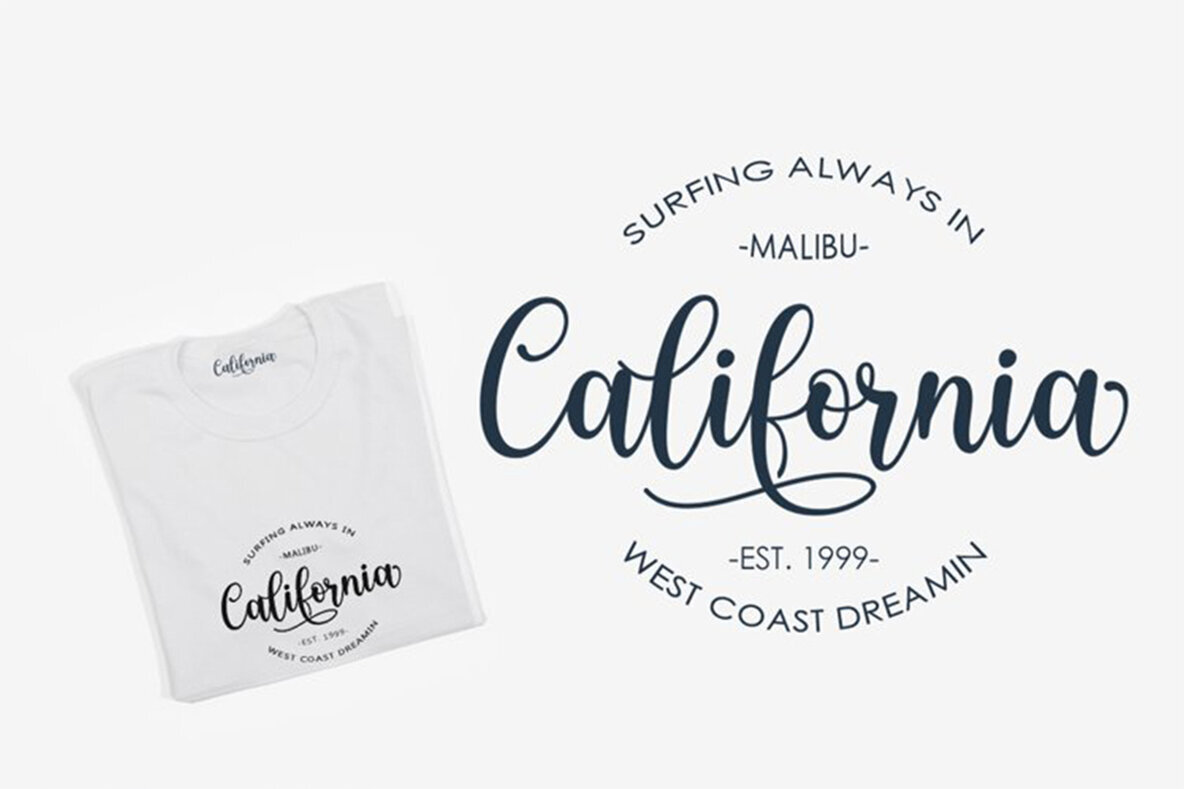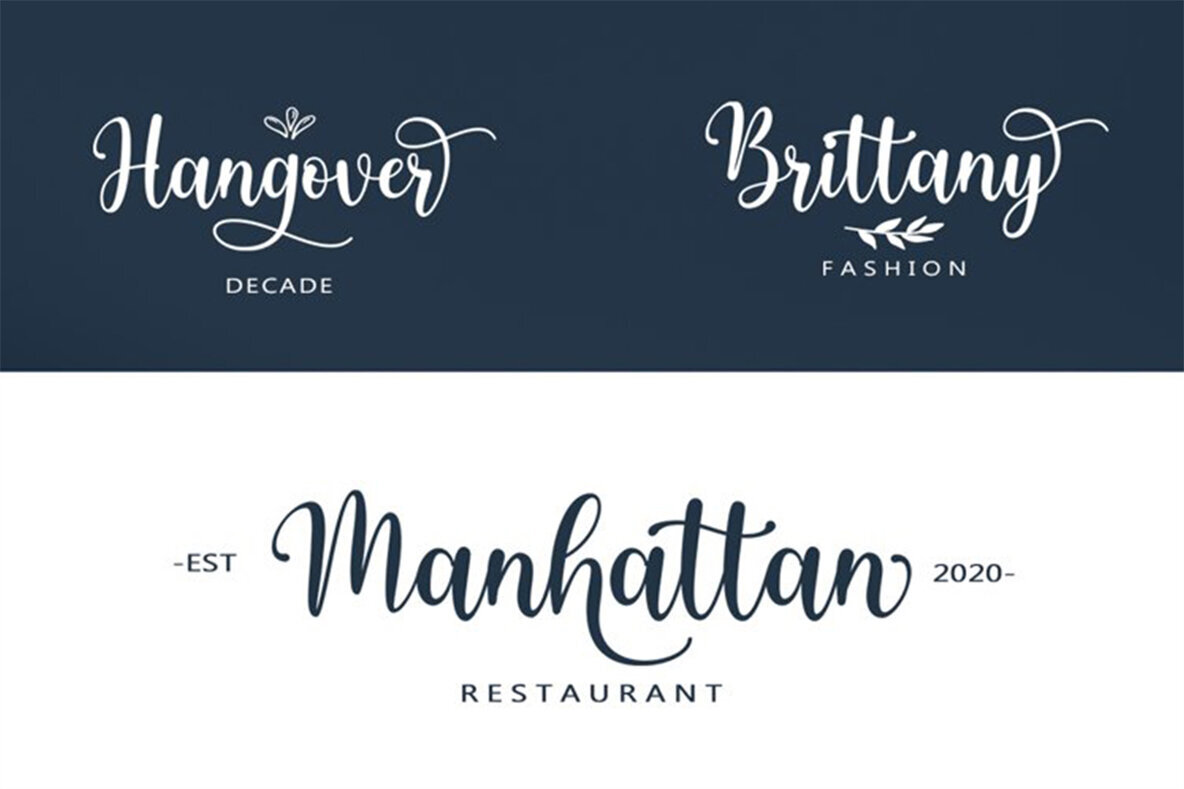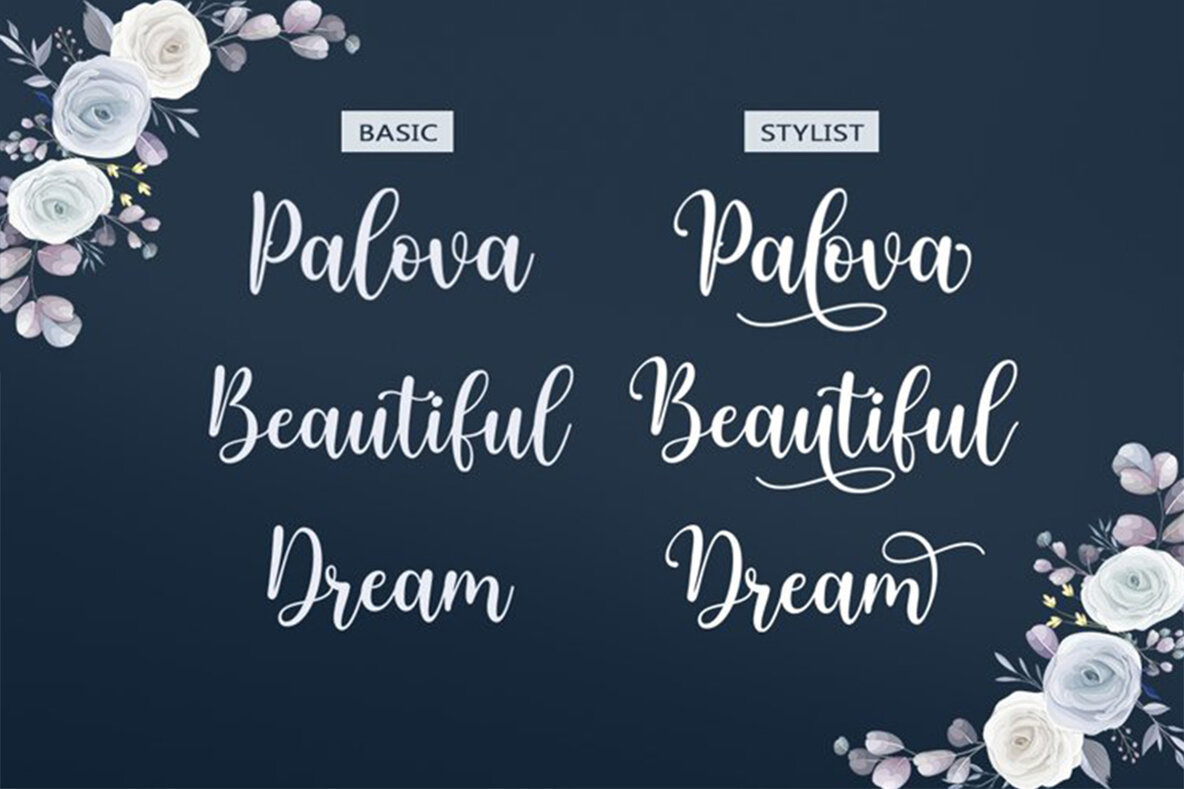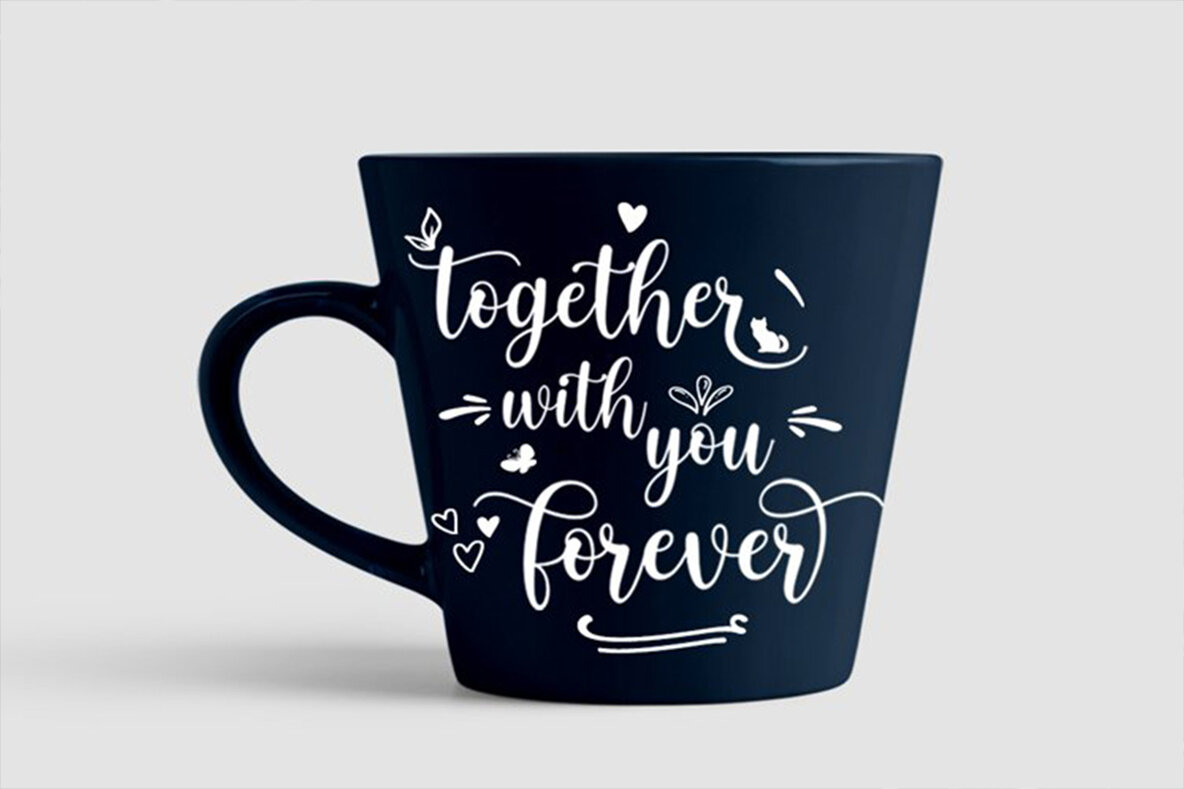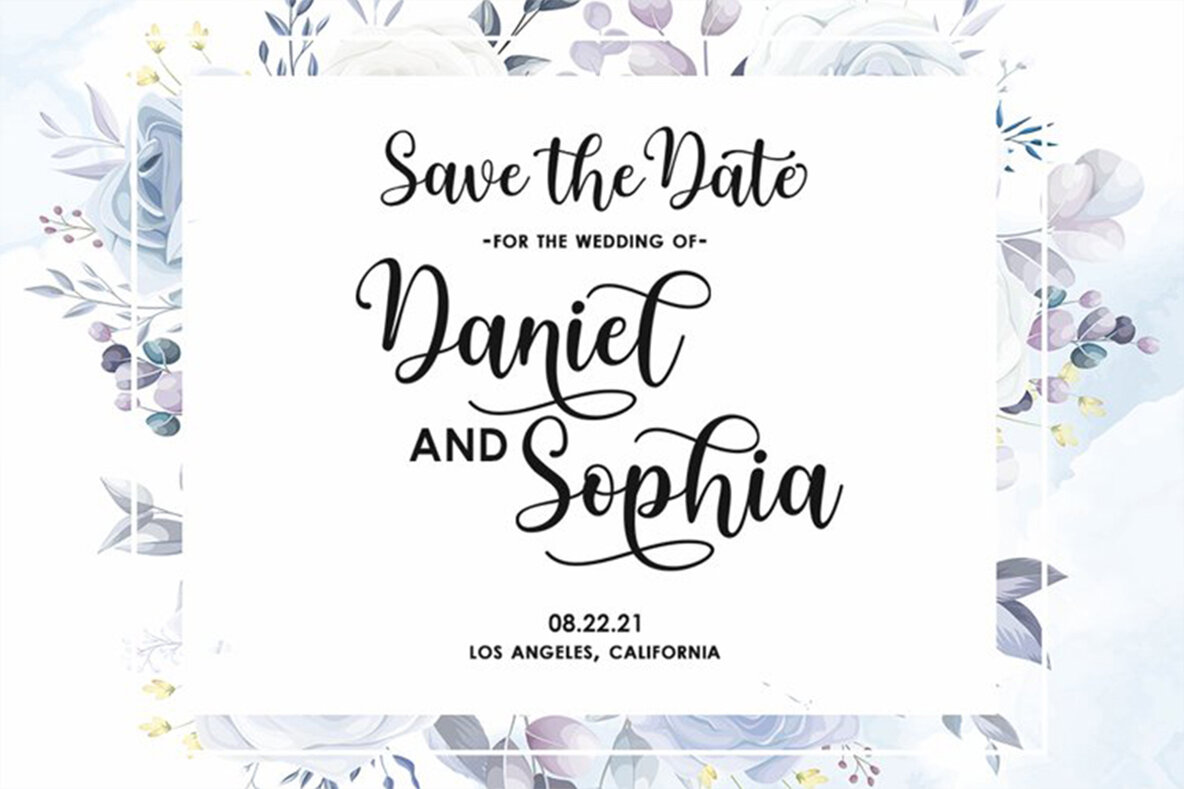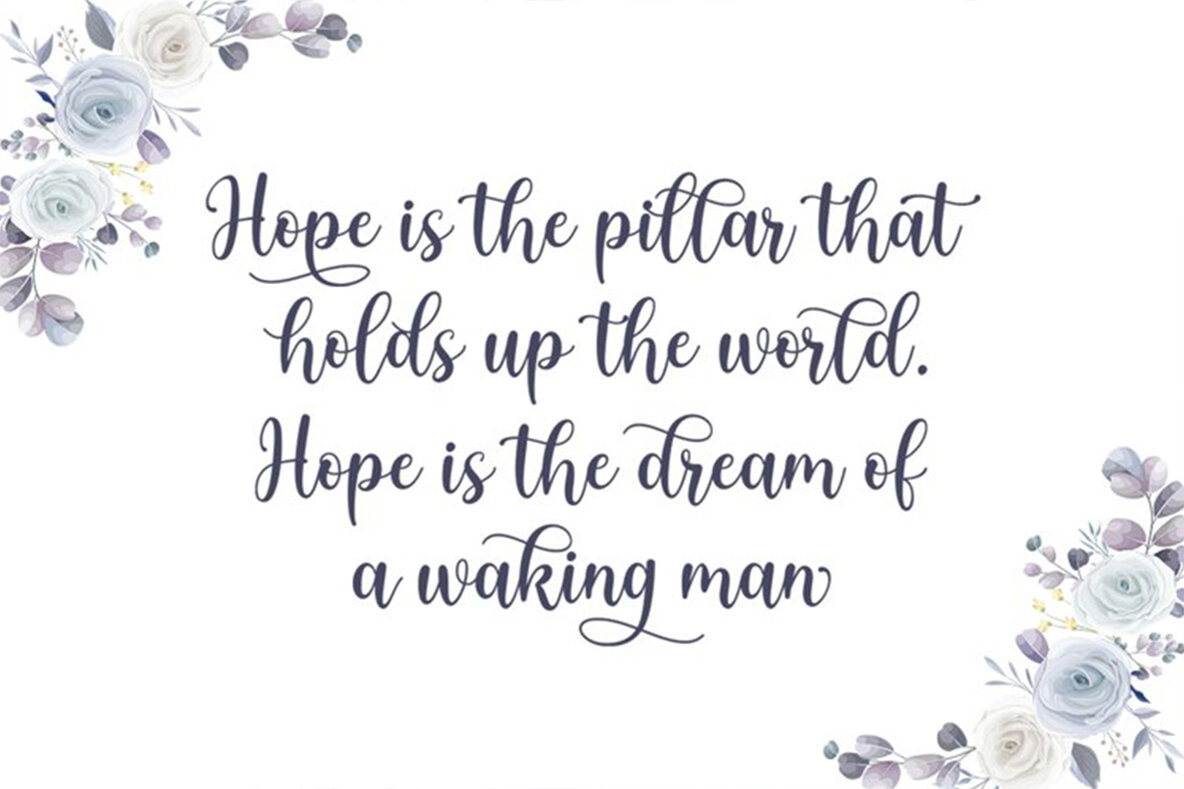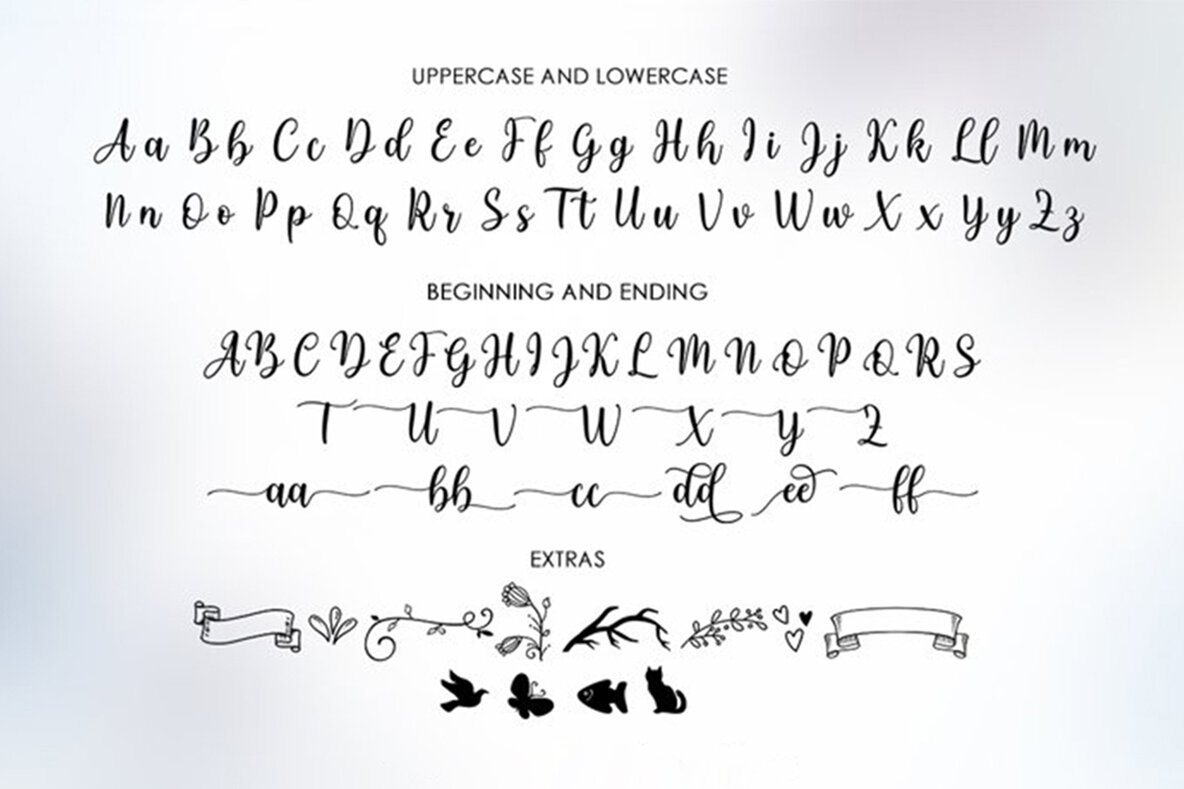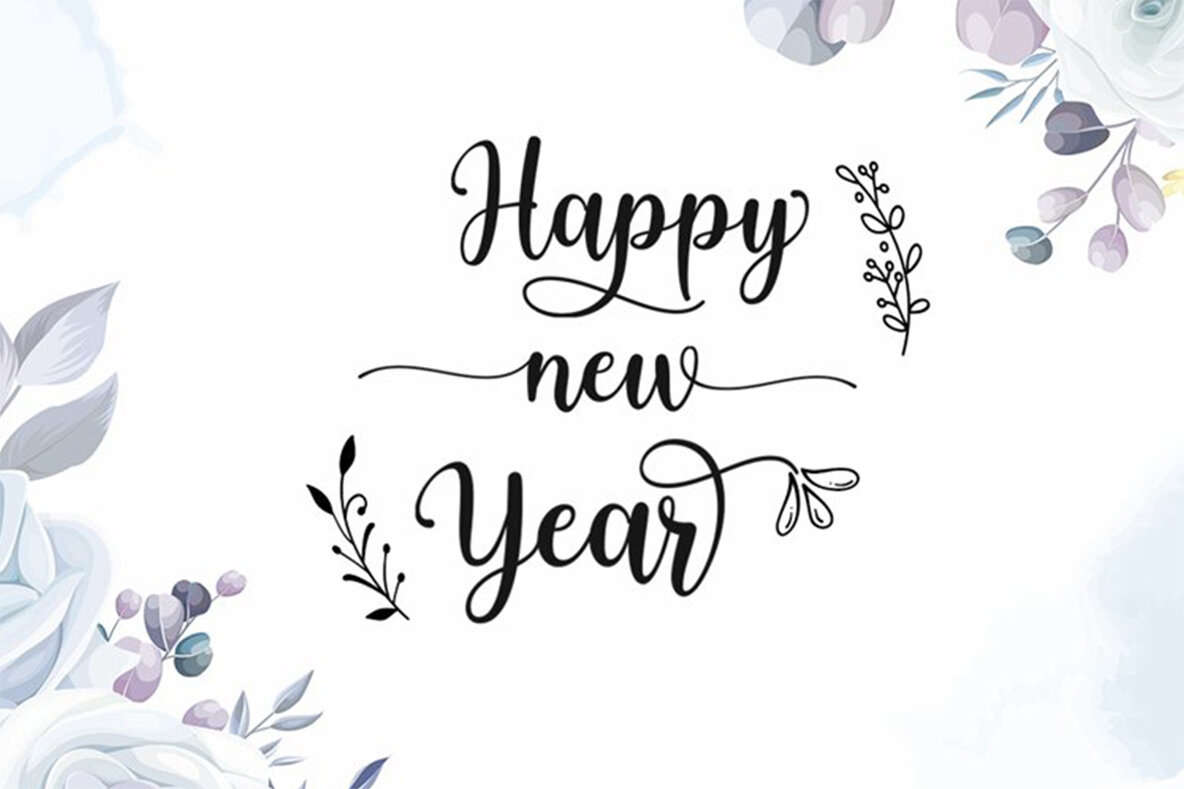
Bromley Hatch Font
Embrace the playful elegance of Bromley Hatch by Attract Studio, a modern script font that blends the charm of informal handwriting with decorative flair. Ideal for designers seeking to infuse projects with a sense of sassy romance, Bromley Hatch offers a versatile typographic toolset perfect for a wide array of design applications. Whether crafting heartfelt quotes or crafting engaging visual narratives, Bromley Hatch carries the potential to enhance your creative projects with its unique style.Bromley Hatch: The Art of Handwritten Typography